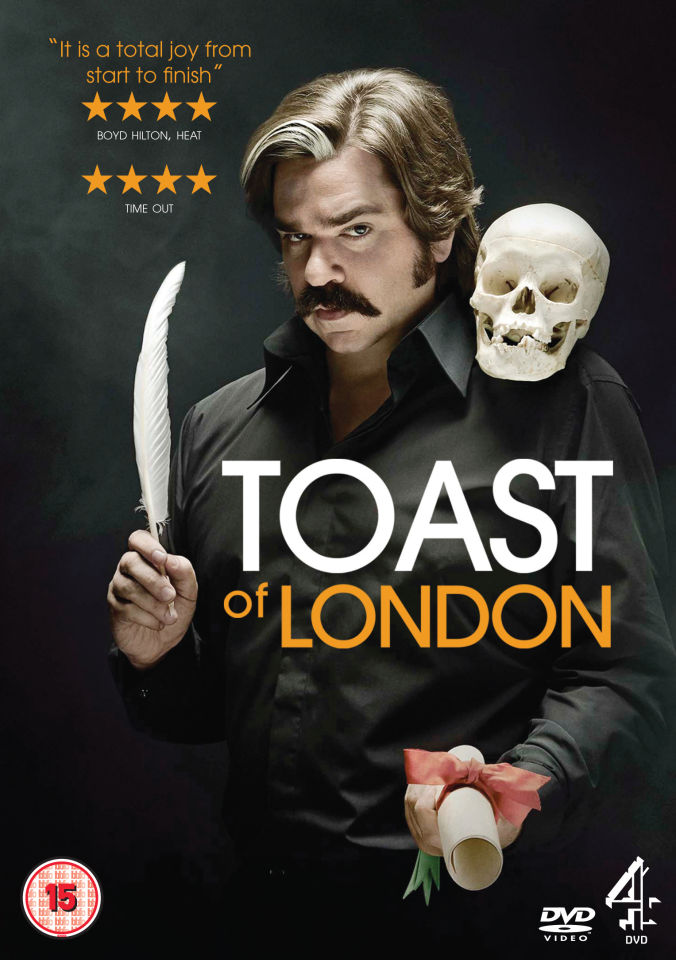
Toast of London Font
ComedyToast of London s a British television series that premiered in 2012. The show stars Matt Berry as Steven Toast, a struggling actor navigating the eccentric world of London's acting scene.
The title of the TV series features the font ITC Avant Garde Gothic Medium, designed in 1970 by Herb Lubalin and Tom Carnase. This geometric sans serif font was inspired by the Avant Garde magazine logo created by Lubalin.